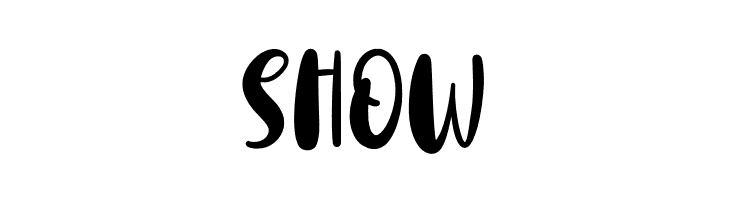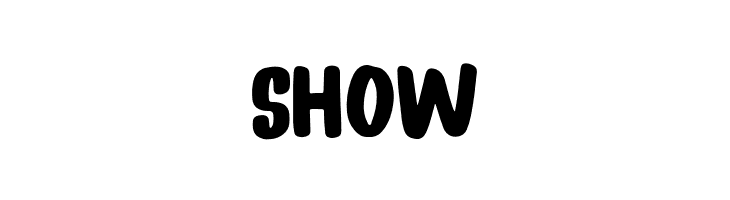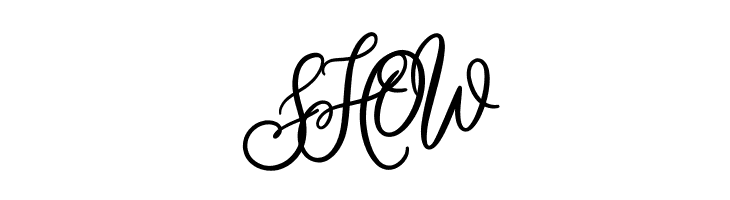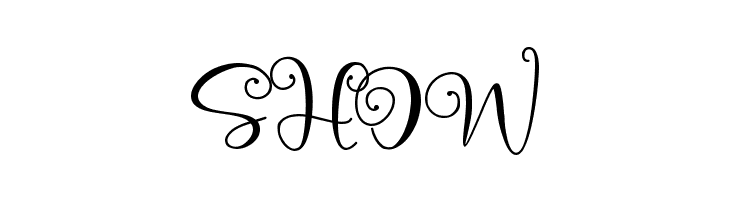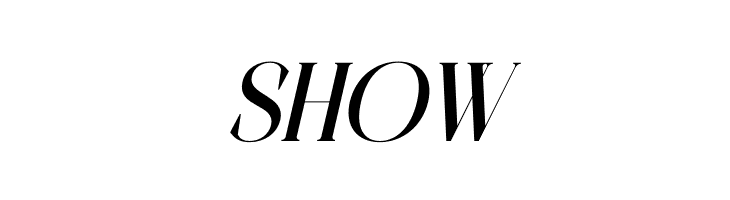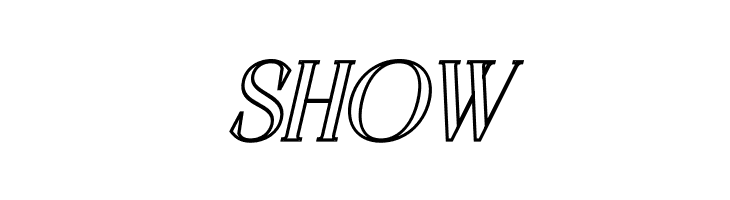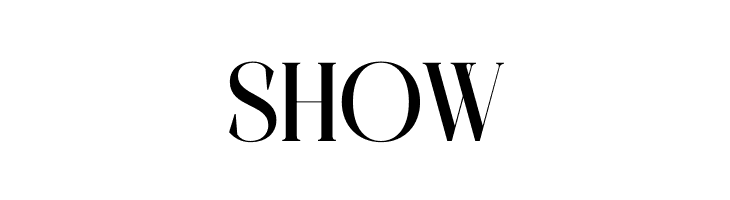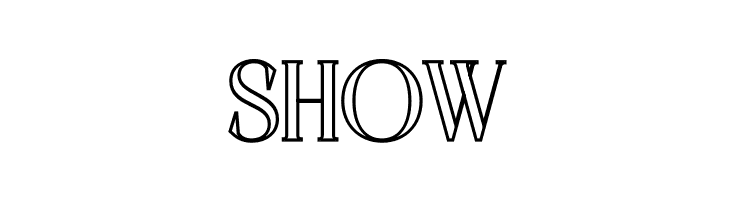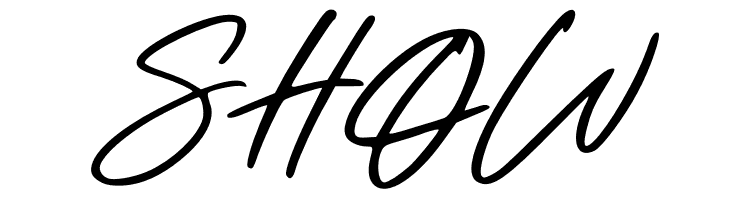
A fluid, elegant handwritten font with a natural cursive style.
An elegant, flowing script font with a natural handwriting style.
An elegant, flowing cursive script with smooth, sweeping strokes.
Elegant, flowing script with a handwritten, calligraphic style.
An elegant, cursive font with a handwritten style, perfect for sophisticated designs.
An elegant, flowing script font with a refined, italic style.
A bold, modern font with geometric shapes and high contrast, perfect for decorative use.
A playful, cursive script font with elegant loops and swirls.
A modern-vintage serif font with arrow-like serifs and artistic flair.
A playful and dynamic font with geometric and whimsical elements.
A high-contrast, elegant serif font with a classic yet modern appeal.
An elegant serif font with high contrast and a refined italic style.
An outlined, geometric font with bold lines and a modern aesthetic.
An elegant outline serif font with an italic slant, offering a refined and classic appearance.
A bold, rounded font with a playful and whimsical style.
An elegant and flowing script font with ornate uppercase letters and smooth lowercase connections.
A fluid, cursive script with elegant, sweeping strokes.
A bold, playful font with thick, rounded shapes and a whimsical style.
A bold, playful sans-serif with hand-drawn, cartoonish character.
A playful, hand-drawn font with elongated, narrow characters and a whimsical style.
A playful, hand-drawn font with tall, narrow characters and a whimsical style.
A playful, handwritten font with a whimsical and childlike charm.
An elegant script font with flowing, cursive letters and calligraphic style.
A playful, flowing script font with a handwritten aesthetic.
A playful, hand-drawn font with bold, rounded characters.
A playful, handwritten font with smooth, rounded edges and a casual style.
A playful, bold handwritten font with smooth, rounded edges and lively character.
A playful, bold font with rounded, thick strokes and a hand-drawn feel.
A bold, angular font inspired by Chicano street art with a strong, edgy style.
A bold, slightly condensed font with a hand-drawn quality.
A decorative and bold font with elegant curves and artistic flair.
A playful, handwritten font with thin, consistent strokes and a casual vibe.
A dynamic, flowing script font with smooth, cursive strokes.
A fluid and elegant script font with a cursive, handwritten style.